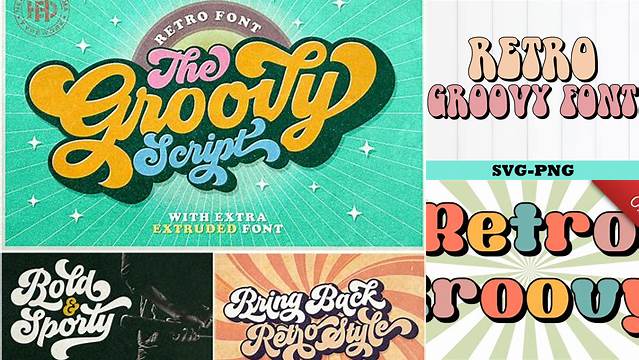
Groovy Fonts: Free Downloads For Retro Designs
Are you looking to infuse your designs with a retro, funky, and vibrant feel? Look no further than the world of groovy fonts! These fonts, reminiscent of the 1960s and 70s, are perfect for adding a touch of nostalgia and personality to your projects. From psychedelic swirls to bold, rounded shapes, groovy fonts can instantly transport your audience to a bygone era. In this article, we'll explore the best groovy fonts available for free download, discuss their uses, and provide tips on how to incorporate them effectively into your designs. So, grab your virtual bell-bottoms and let's dive into the world of groovy typography!
What are Groovy Fonts?
Groovy fonts are characterized by their retro, organic, and often playful designs. They draw inspiration from the psychedelic art and design trends of the 1960s and 1970s, featuring elements like swirling lines, rounded shapes, and bold, eye-catching forms. Imagine the fonts you might have seen on vintage concert posters, album covers, and advertisements – that's the essence of groovy typography. These fonts are not just about aesthetics; they evoke a feeling, a vibe of peace, love, and a whole lot of fun. Whether you're working on a retro-themed project, a music event poster, or simply want to add a unique touch to your branding, groovy fonts can be a fantastic choice. The key to using them effectively lies in understanding their personality and pairing them with complementary design elements.
When you think of groovy fonts, think about the era they represent. The '60s and '70s were a time of cultural revolution, artistic exploration, and a rejection of the conventional. This spirit is reflected in the fonts of the time, which often break the rules of traditional typography. You'll find fonts with exaggerated curves, irregular letterforms, and a general sense of whimsy. Some groovy fonts even incorporate psychedelic patterns and textures, adding another layer of visual interest. The beauty of these fonts is that they can be both retro and modern, depending on how you use them. They can add a touch of vintage charm to a contemporary design or perfectly capture the mood of a period piece. So, whether you're a seasoned designer or just starting out, exploring groovy fonts can open up a whole new world of creative possibilities. Remember, the best groovy fonts are those that capture the spirit of the era while still being legible and functional.
Using groovy fonts effectively is all about understanding their character and context. These fonts are not typically suited for formal or corporate settings, but they excel in creative projects where a sense of fun and personality is desired. Think about the message you want to convey and whether a groovy font aligns with that message. For example, a groovy font might be perfect for a music festival poster or a vintage-inspired logo, but it might not be the best choice for a legal document. The key is to use them sparingly and intentionally. Overusing groovy fonts can make your design look cluttered and overwhelming. Instead, try using them for headlines or logos and pairing them with more neutral fonts for body text. This creates a balance and ensures that your message is still clear and readable. Experiment with different combinations and see what works best for your project. And most importantly, have fun with it! Groovy fonts are all about expressing your creativity and adding a unique touch to your designs.
Top Groovy Fonts for Free Download
Now that you know where to find them, let's explore some of the top groovy fonts available for free download. These fonts capture the essence of the retro era, offering a range of styles from bold and playful to psychedelic and whimsical. Whether you're designing a poster, logo, or website, these fonts will add a unique touch of vintage flair to your project. Some popular options include Funkydori, with its rounded, bubble-letter style; Peace Sans, a bold and impactful sans-serif with a groovy twist; and Groovy Script, a flowing and elegant script font perfect for adding a touch of sophistication to your retro designs. Each of these fonts brings its own personality and charm, allowing you to create designs that truly stand out.
Funkydori is a fantastic choice for projects that need a playful and approachable feel. Its rounded, bubble-like letters exude a sense of fun and nostalgia, making it perfect for posters, invitations, and children's designs. Imagine using Funkydori for a birthday party invitation or a retro-themed event flyer. The font's friendly and inviting nature will instantly capture the attention of your audience. Peace Sans, on the other hand, is a bolder and more impactful option. This sans-serif font features thick, rounded strokes and a slightly tilted posture, giving it a groovy and dynamic appearance. Peace Sans is ideal for headlines, logos, and other display purposes where you want to make a statement. Its strong presence and unique character will ensure your message is seen and remembered. The font's versatility makes it a great choice for a wide range of projects, from website headers to social media graphics.
Groovy Script offers a more elegant and sophisticated take on the groovy font style. This flowing script font features graceful curves and a delicate touch, making it perfect for adding a touch of retro charm to invitations, wedding designs, and other special occasions. Imagine using Groovy Script for a vintage-inspired wedding invitation or a handwritten-style logo. The font's elegant and refined appearance will add a touch of class to your project. When choosing a groovy font, it's important to consider the overall tone and message of your design. Think about the era you're trying to evoke and the emotions you want to convey. Experiment with different fonts and combinations to find the perfect fit for your project. Don't be afraid to mix and match different styles to create a unique and eye-catching design. And remember, the best groovy fonts are those that capture the spirit of the retro era while still being legible and functional.
Whether you're working on a personal project or a professional design, groovy fonts can be a valuable addition to your typographic toolkit. They offer a unique and distinctive style that can help your designs stand out from the crowd. By following the tips and advice outlined in this article, you can confidently incorporate groovy fonts into your projects and create designs that are both visually appealing and effective. So, don't be afraid to experiment, have fun, and let your creativity flow. The world of groovy fonts is waiting to be explored, and the possibilities are endless. Happy designing, guys! Let the groovy vibes flow through your next design project and make a statement that's both retro and refreshingly unique.